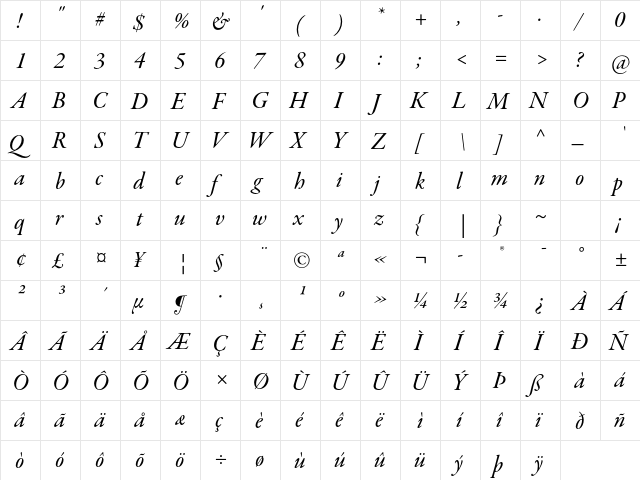
Garamond Premier Pro Medium Italic Subhead Font Preview
Garamond Premier Pro Medium Italic Subhead
Garamond Premier Pro Medium Italic Subhead Font Details
| Style | Medium Italic Subhead |
| Designer | Robert Slimbach |
Design Context for Garamond Premier Pro Typeface
Garamond Premier Pro offers clean, dependable letterforms without strong stylistic allegiance, making it a practical choice for designers who need flexibility. The dynamic lean of this cut emphasises speed and emphasis in any layout.
Pro Tip: Try Garamond Premier Pro for annotation and caption copy alongside an upright companion — the contrast in angle creates a dynamic but ordered typographic system.